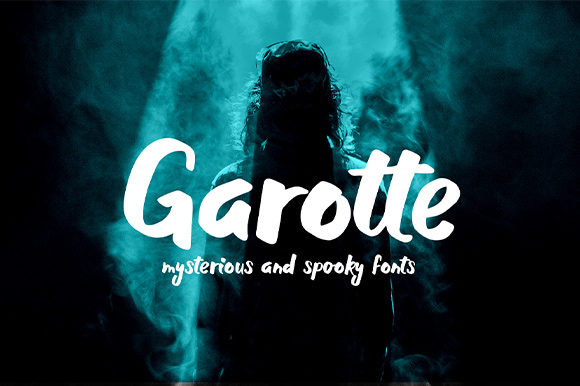
Dive into the world of Garotte Font, an exquisitely crafted handwritten font that will captivate your senses and elevate your designs to new heights. This remarkable font family, born from the creative mind of Nico Muslib, seamlessly blends the charm of calligraphy with a modern, refreshing touch, making it a perfect choice for T-shirt designs and projects that demand a personal touch.
Embark on a typographic journey with Garotte Font, where each character dances across the screen with elegance and grace. Its carefully crafted curves and swashes create a visually stunning aesthetic that is sure to leave a lasting impression. Unleash your creativity and let your imagination soar as you explore the endless possibilities that await you with this captivating font.
Whether you're a seasoned designer or just starting your creative journey, Garotte Font is the perfect companion for your projects. Its user-friendly nature makes it easy to incorporate into your designs, allowing you to achieve stunning results with minimal effort. Experience the joy of seamless customization as you tailor the font to match your unique vision.
With Garotte Font, you'll unlock a world of design possibilities. Create eye-catching T-shirt designs that will turn heads wherever you go. Let your imagination run wild as you craft personalized invitations, greeting cards, and social media posts that exude charm and sophistication. The versatility of Garotte Font extends beyond T-shirts; it's the perfect choice for branding, logos, posters, and any project that calls for a touch of elegance.
Don't miss out on the opportunity to elevate your designs with Garotte Font. Its captivating style and endless versatility will transform your projects into masterpieces. Embrace the beauty of handwritten fonts and unlock a world of creative possibilities. Let Garotte Font be your guiding light as you embark on a typographic adventure that will leave you breathless.